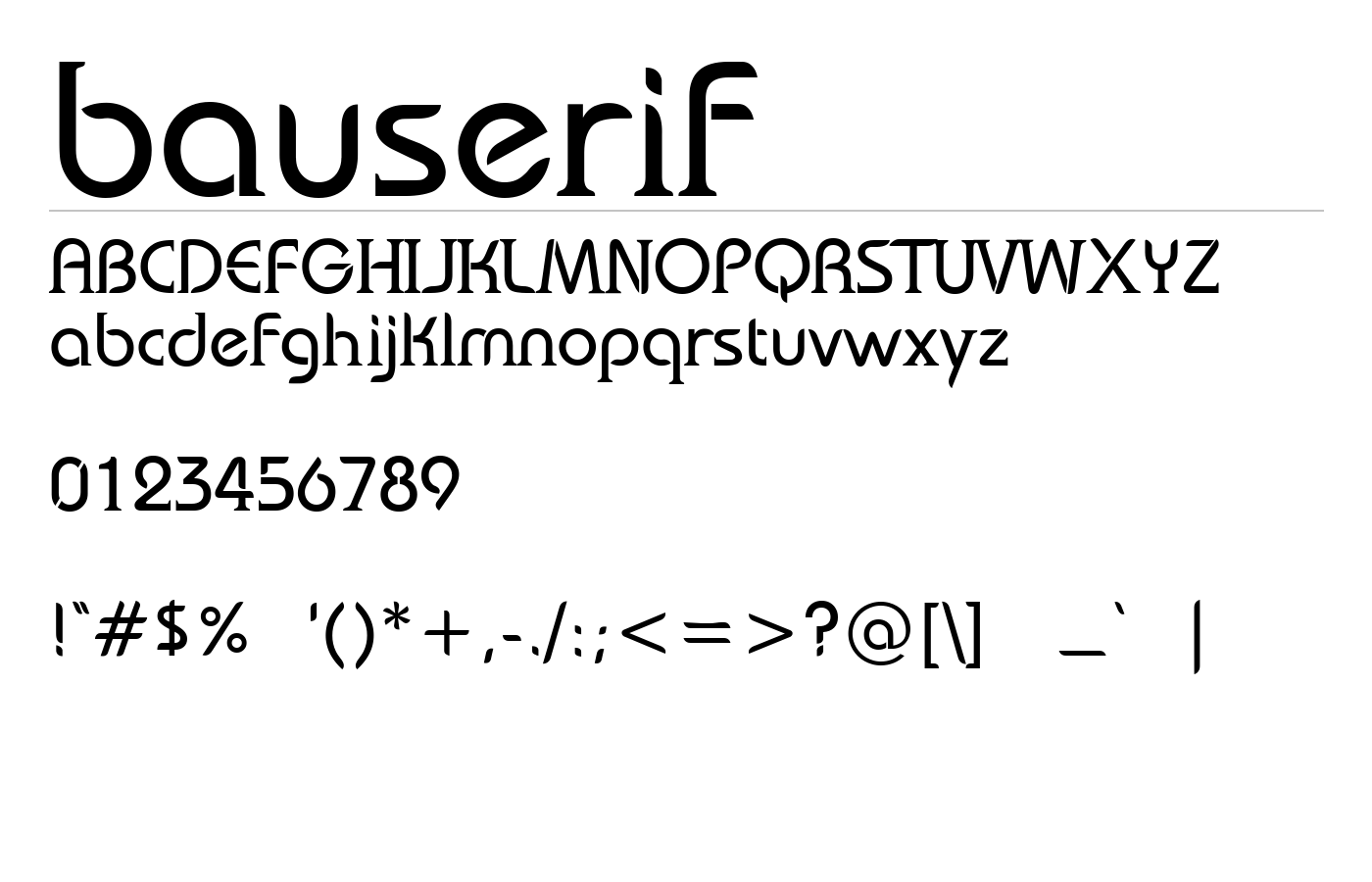
Bauserif is a unique serif font blending geometric modernity with subtle vintage charm. Its medium weight and moderate contrast give it a refined yet approachable feel, highlighted by distinct, slightly curved serif details and a mix of single and double-story letterforms. Ideal for creative branding, editorial headlines, and stylish packaging, it lends a sophisticated yet playful tone that stands out without overwhelming.
bauserif Font
About bauserif Font